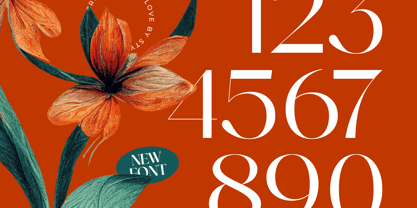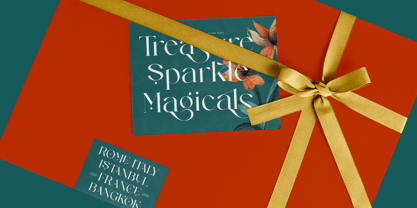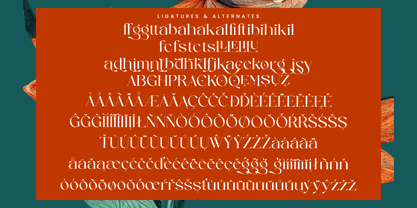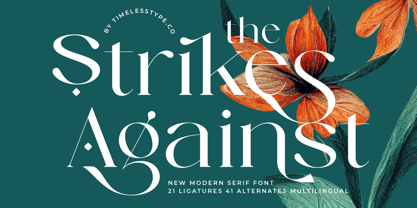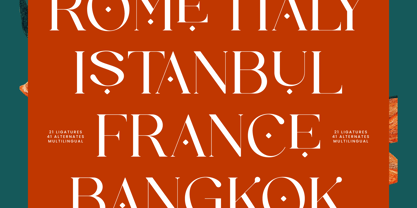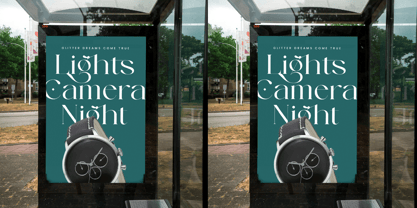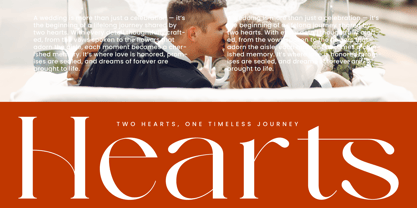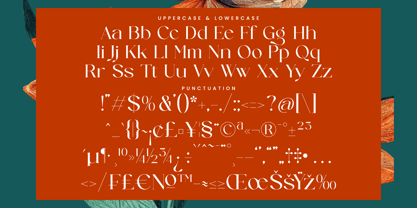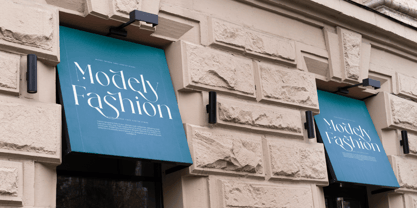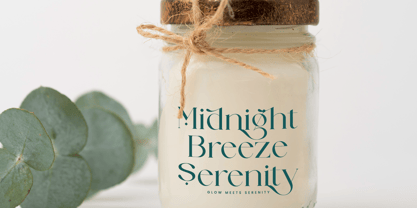
Strikes Against
par Timelesstype Studio
La famille de polices Strikes Against a été conçue par Heru Utama Putra et publiée par Timelesstype Studio. Strikes Against contient 2 styles et options de package familial.
Strikes Against - Modern Serif Font , from Timelesstype .Co , Suitable for any projects such as: logos, branding projects, homeware designs, product packaging, mugs, quotes, posters, shopping bags, t-shirts, book covers, name card, invitation cards, greeting cards, label, photography, watermark, special events, and all your other luxury and beautiful projects that need a Luxury Serif taste.